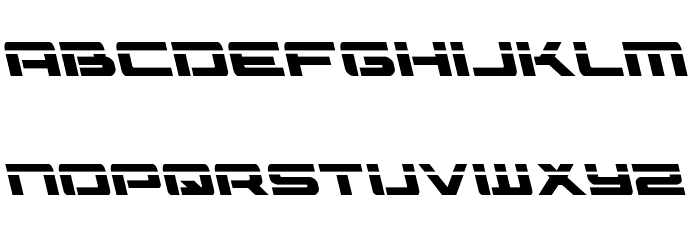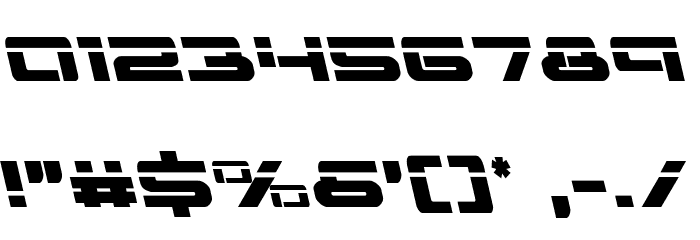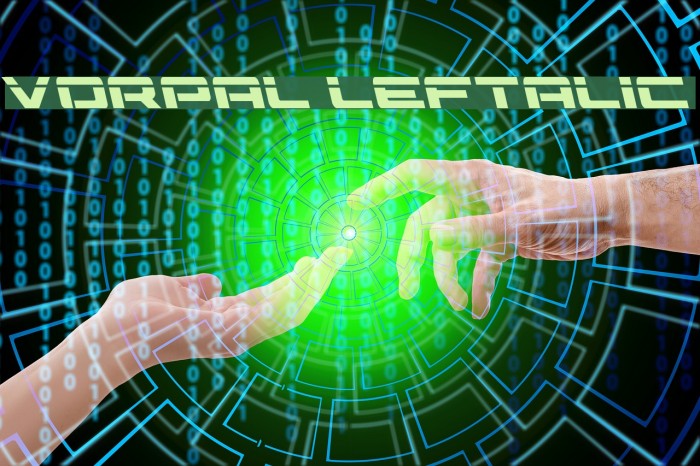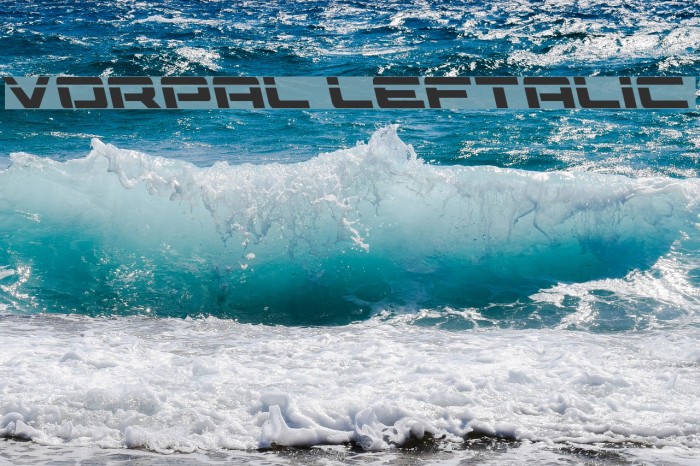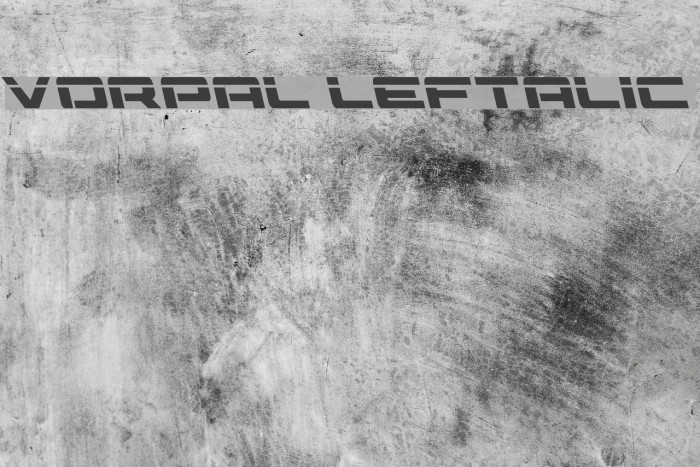
Vorpal Leftalic Font
This font features a bold, futuristic design with a distinct geometric structure. The characters are constructed with sharp angles and a consistent slant, giving them a dynamic and forward-moving appearance. The uppercase and lowercase letters maintain a uniform style, with the lowercase slightly smaller but equally bold. Numbers and special characters follow the same design principles, ensuring a cohesive look across all glyphs. The font's unique style makes it stand out, ideal for projects that require a modern and edgy aesthetic.
A bold, futuristic font with geometric angles and a dynamic slant.
- Proposed Projects: Ideal for sci-fi themed designs, video game titles, tech branding, and modern posters.